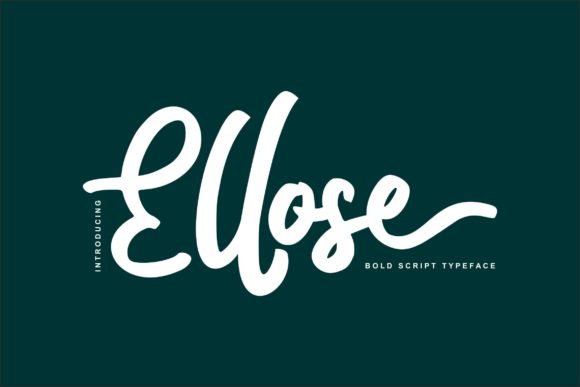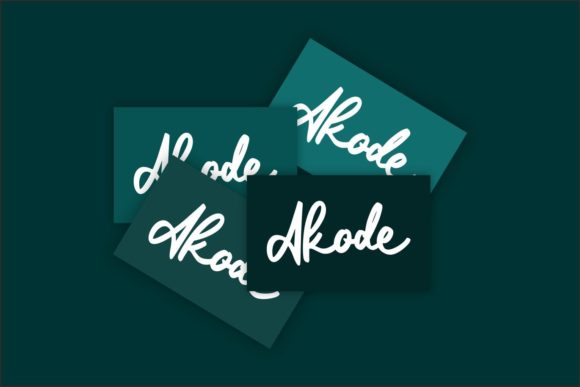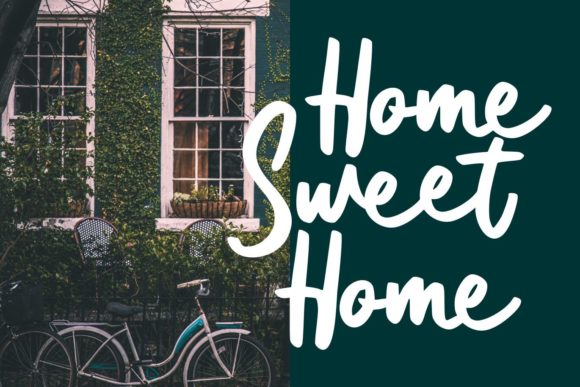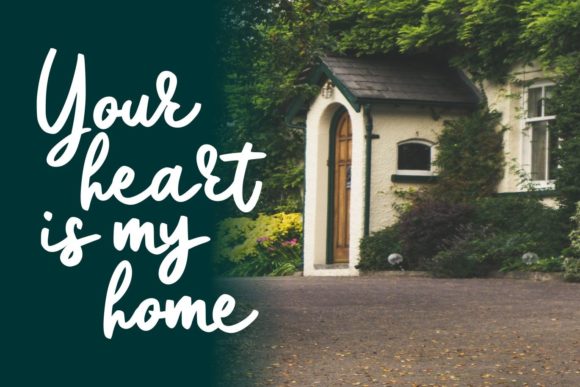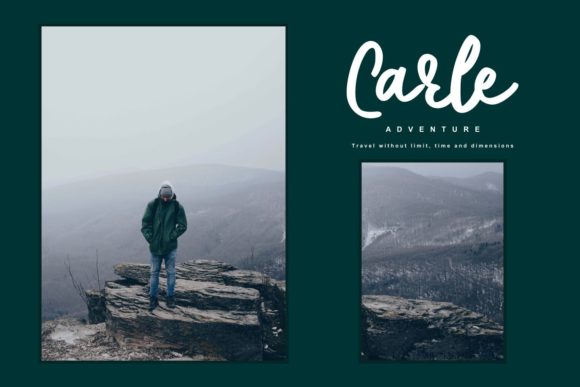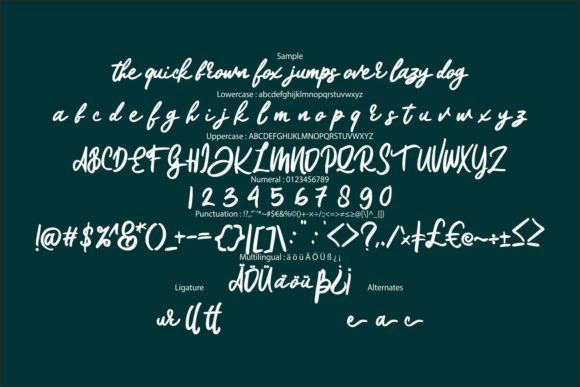
Ellose Font
About Ellose Font
Ellose is a lovely and timeless handwritten font. It is the best choice for creating eye catching logos, branding and quotes. Every letter has a unique and beautiful touch, which will make your design come alive!